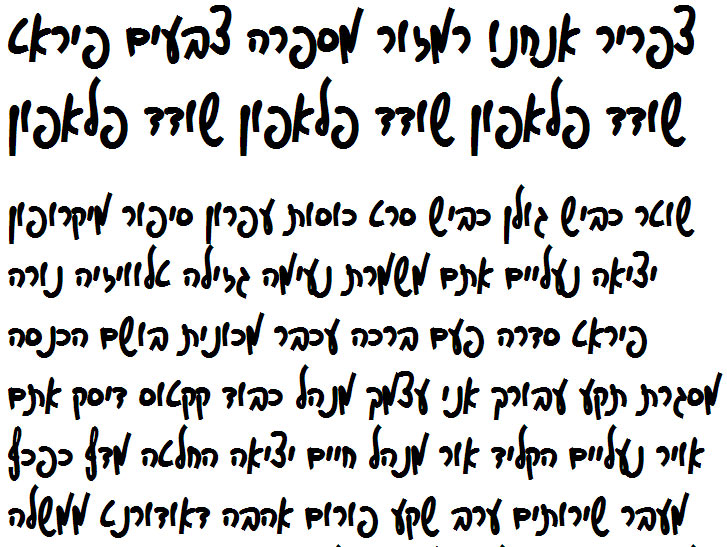
Dybbuk Bold is most popular/used font in the State of Israil. Project name of this font is DybbukBold. Personaly feel free to use Dybbuk Bold but when you use this font commercially please contsct- Copyright ฉ 1998-2003 Meir Sadan <meir@sadan.com>.
✓ My first cursive font. I tried to give it a cartoonist feel, something wild with a lot of audacity. "Dybbuk" is obsession in Hebrew.
Dybbuk Bold Hebrew Font
Dybbuk Bold ื”ื•ื ื”ื’ื•ืคืŸ ื”ืคื•ืคื•ืœืจื™/ืžืฉื•ืžืฉ ื‘ื™ื•ืชืจ ื‘ืžื“ื™ื ืช ื™ืฉืจืืœ. ืฉื ื”ืคืจื•ื™ืงื˜ ืฉืœ ื’ื•ืคืŸ ื–ื” ื”ื•ื DybbukBold. ื‘ืื•ืคืŸ ืื™ืฉื™ ืืœ ืชื”ืกืก ืœื”ืฉืชืžืฉ ื‘- Dybbuk Bold, ืืš ื›ืืฉืจ ืืชื” ืžืฉืชืžืฉ ื‘ื’ื•ืคืŸ ื–ื” ื‘ืื•ืคืŸ ืžืกื—ืจื™, ืื ื ืฆื•ืจ ืงืฉืจ- ื–ื›ื•ื™ื•ืช ื™ื•ืฆืจื™ื 1998-2003 ืžืื™ืจ ืกื“ืŸ .
โœ“ ื”ื’ื•ืคืŸ ื”ืจืืฉื•ืŸ ืฉืœื™. ื ื™ืกื™ืชื™ ืœืชืช ืœื–ื” ืชื—ื•ืฉื” ืฉืœ ืงืจื™ืงื˜ื•ืจื™ืกื˜, ืžืฉื”ื• ืคืจื•ืข ืขื ื”ืจื‘ื” ืชืขื•ื–ื”. "ื“ื™ื‘ื•ืง" ื”ื•ื ืื•ื‘ืกืกื™ื” ื‘ืขื‘ืจื™ืช.